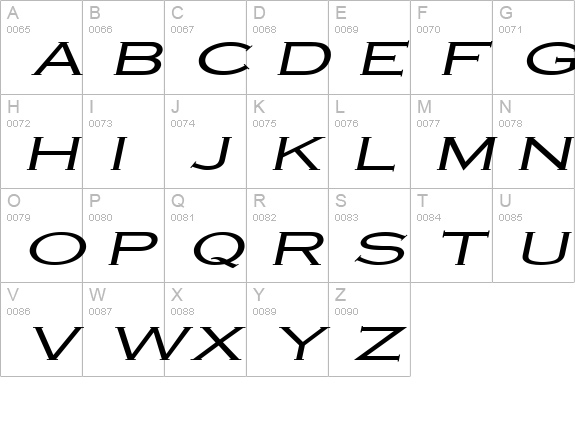
Cobalt Extended Italic Font Details
Cobalt Extended Italic is a distinctive, extended-width, italic variant in the Cobalt typeface family \xE2\x80\x94 well suited to design and typography projects.
Cobalt Extended Italic font is a sleek and modern typeface that exudes elegance and sophistication. Its slender and slanted design adds a touch of flair to any project, making it perfect for use in branding, editorial design, and more. The delicate curves and subtle angles of this font create a sense of movement and fluidity, capturing the eye of the reader. What makes Cobalt Extended Italic font even more appealing is that it is available for free download at FontsMarket.com. This means that you can easily enhance your designs with this stylish and versatile typeface without breaking the bank. Whether you are a graphic designer, a business owner, or a content creator, Cobalt Extended Italic font is sure to elevate your projects and leave a lasting impression on your audience.